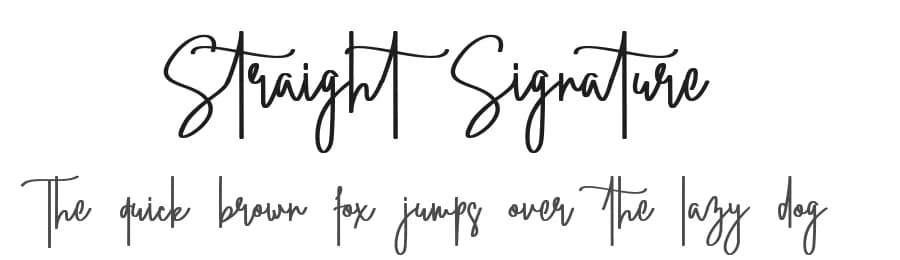
About Straight Signature Font
Straight Signature is a script & handwritten font designed by Letterlycious. It includes 235 glyphs, a regular weight, TTF (TrueType) format, and 217 languages. Straight Signature is free to download; check the license details on this page before commercial use. Script & handwritten fonts like Straight Signature work best for wedding invitations, greeting cards, signatures, and elegant branding.
Straight Signature Font is a script font that shines as a display or heading face. Pair it with a clean sans-serif or serif font for body text β the contrast creates a clear hierarchy while the two styles stay balanced and easy to read.
Straight Signature Font
Straight Signature Font is a script handwritten typeface by Letterlycious, ideal for logos, invitations, branding, and creative projects.